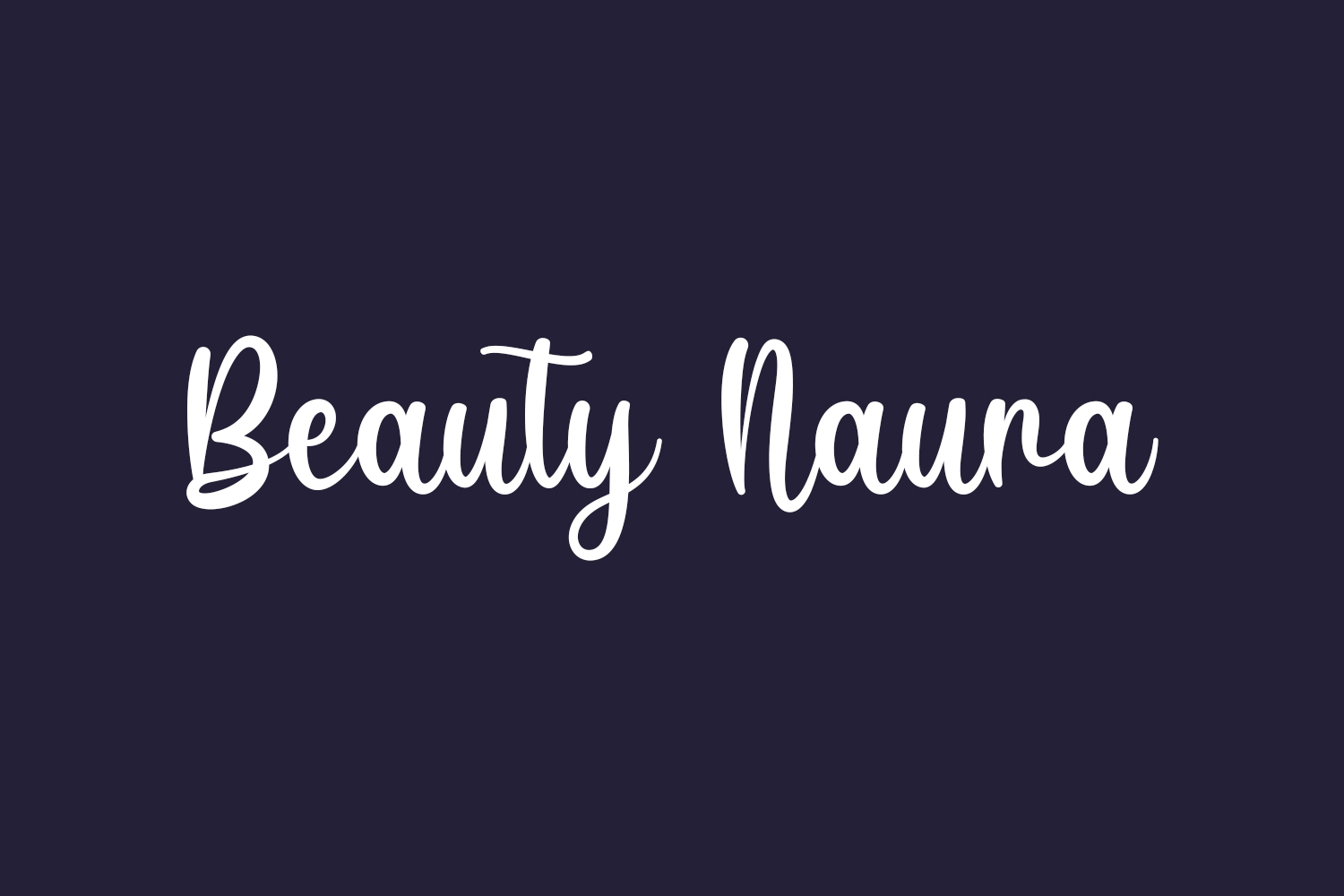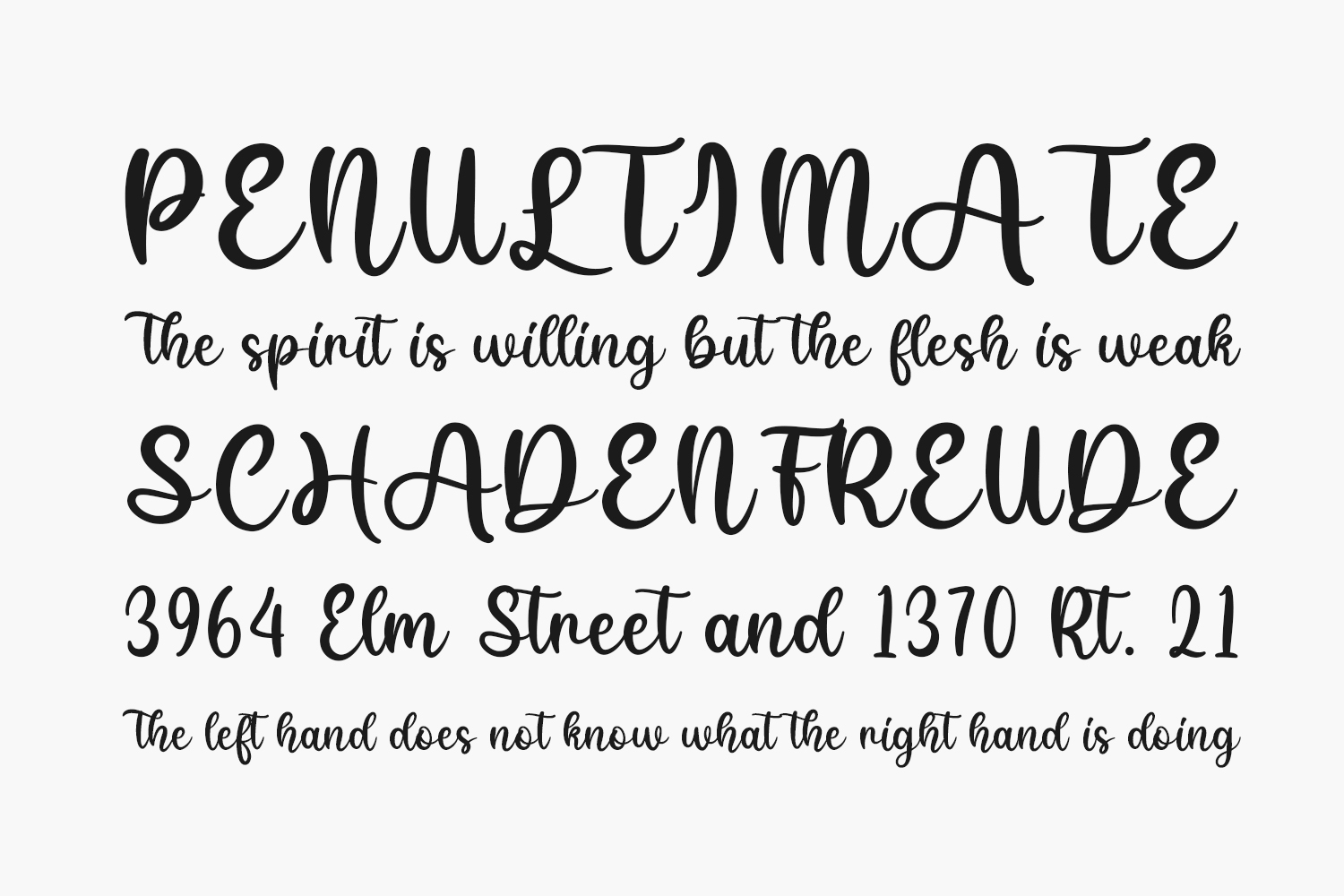
Beauty Naura Free Font is a stylish and incredibly elegant script font. Beauty Naura Free Font was designed by Letter Art Studio is a demo and free for personal use only. Please purchase the full version for commercial use.
Designed by Letter Art Studio